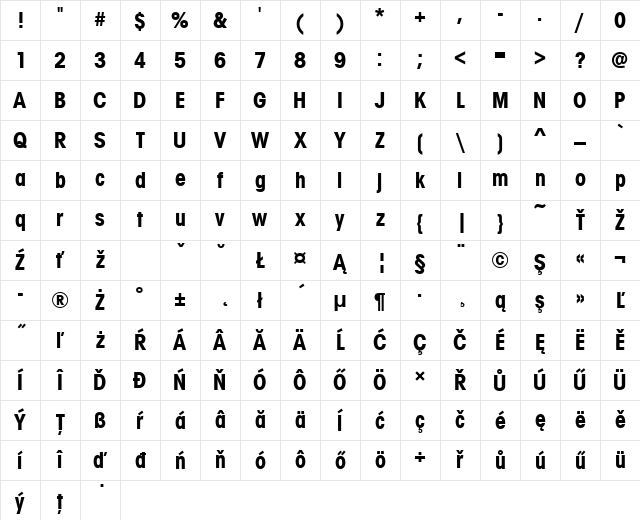
AvantGarGotItcTEECon Bold
Design Context for AvantGarGotItcTEECon
AvantGarGotItcTEECon is a composed and adaptable typeface that performs quietly and consistently across a wide range of design contexts. Its bold stroke weight gives it real presence on the page.